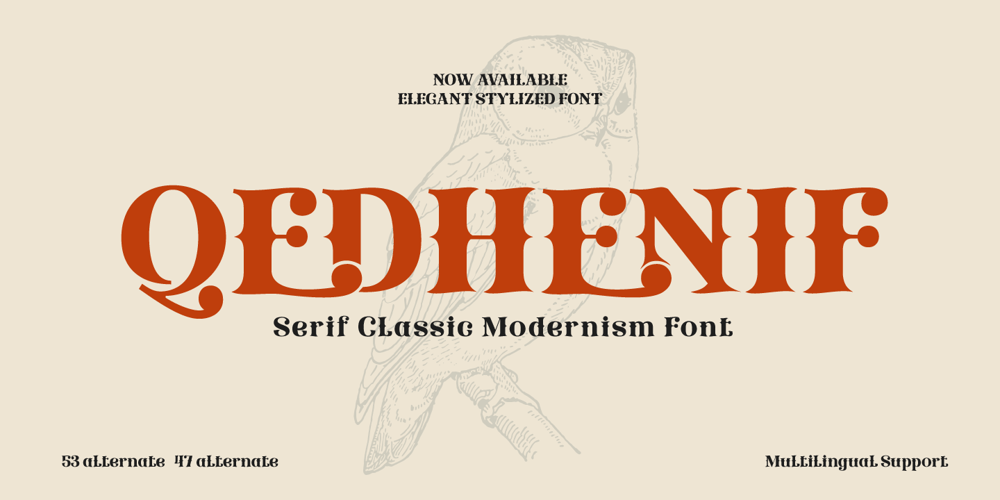
Qedhenif Font Family was designed by Rozikan and published by Twinletter. Qedhenif contains 1 styles and family package options. Qedhenif is a Serif Classic Modernism Font that boasts a retro classic style. With its sleek and sophisticated design, this font is perfect for creating a vintage look that’s both elegant and timeless. Its OpenType features include 53 stylish alternates and 47 beautiful ligatures, making it versatile and suitable for a variety of special projects.Whether you’re working on a branding project, packaging design, or editorial layout, Qedhenif’s alternate characters and ligatures add a touch of personality to your designs. And with its multilingual support, you can use this font for projects in different languages, reaching a wider audience. Explore the possibilities of Qedhenif and elevate your designs to the next level.What’s Included :- File font- All glyphs Iso Latin 1- Alternate, Ligature- Simple installations- We highly recommend using a program that supports OpenType features and Glyphs panels like many Adobe apps and Corel Draw so that you can see and access all Glyph variations.- PUA Encoded Characters – Fully accessible without additional design software.- Fonts include Multilingual support-All Caps font